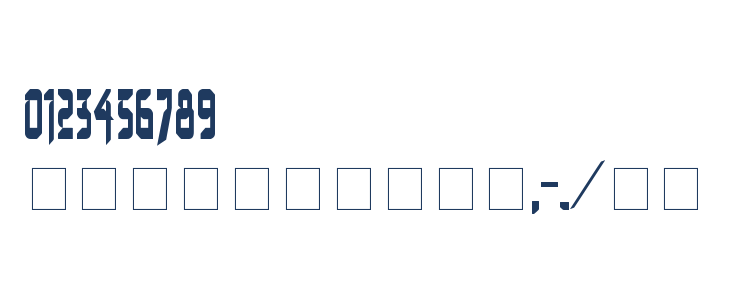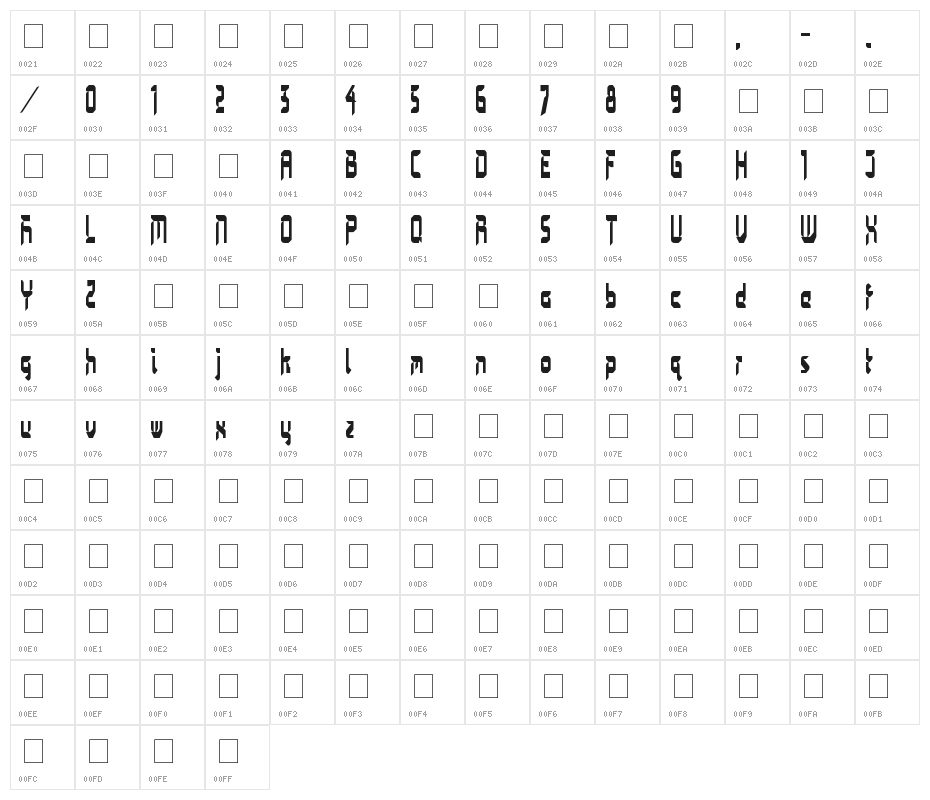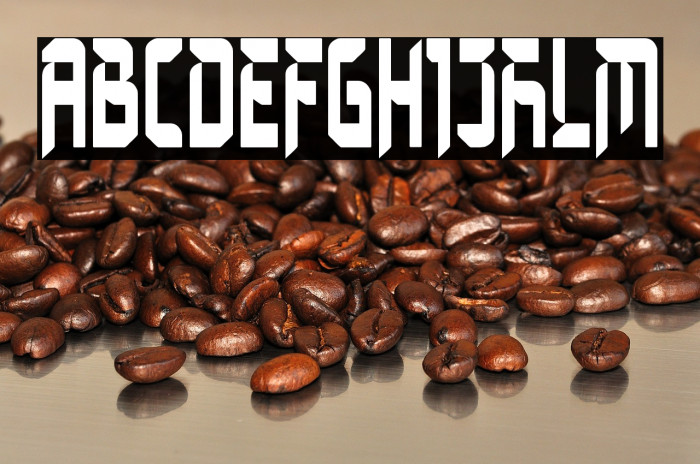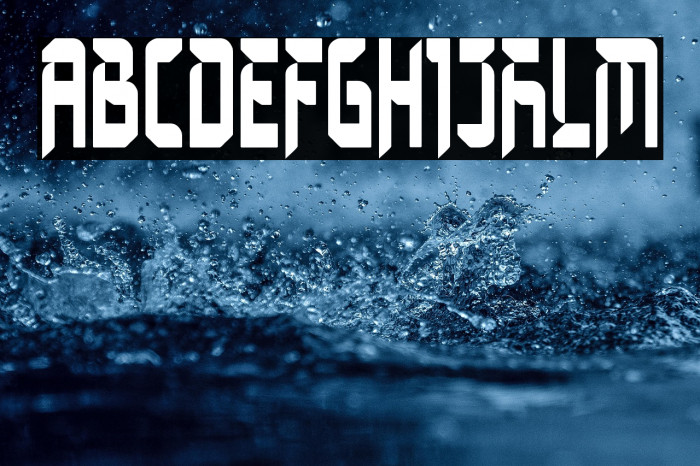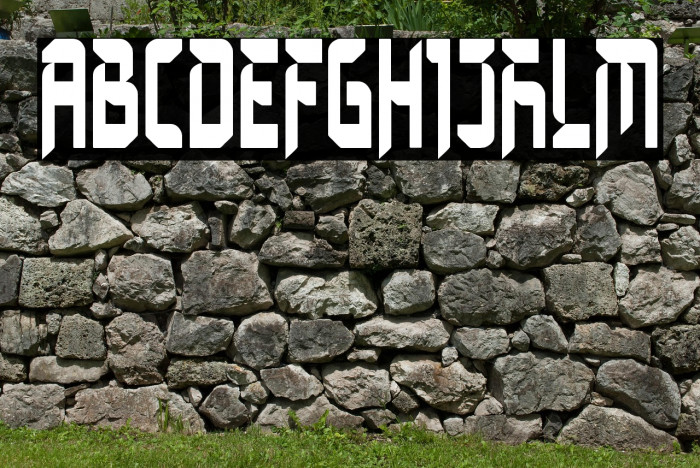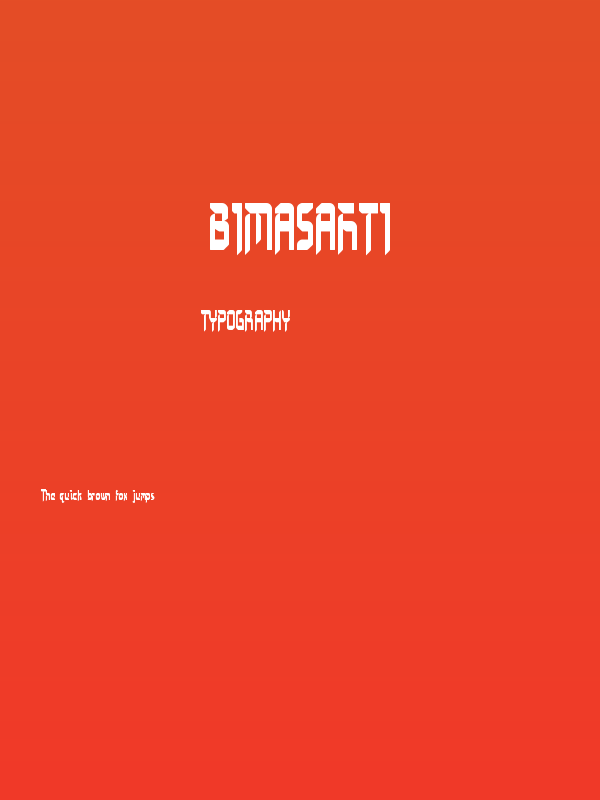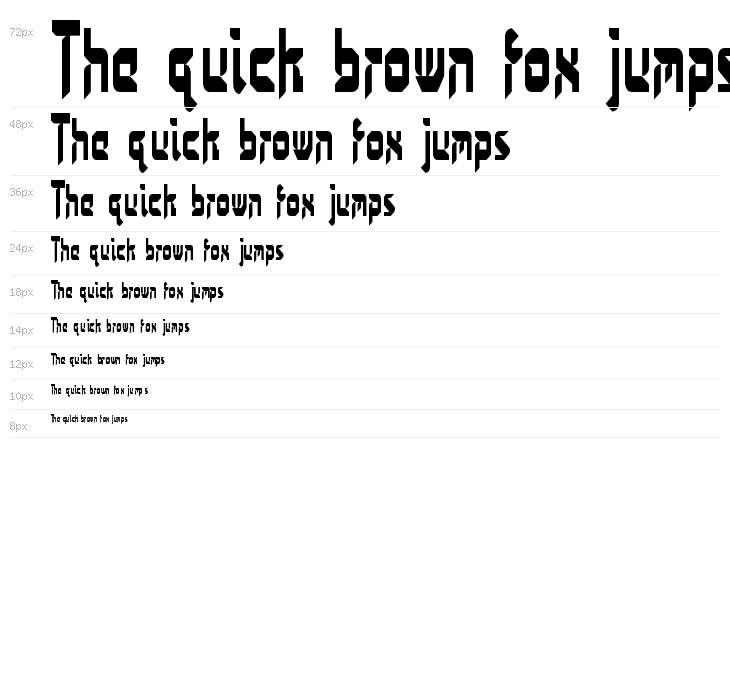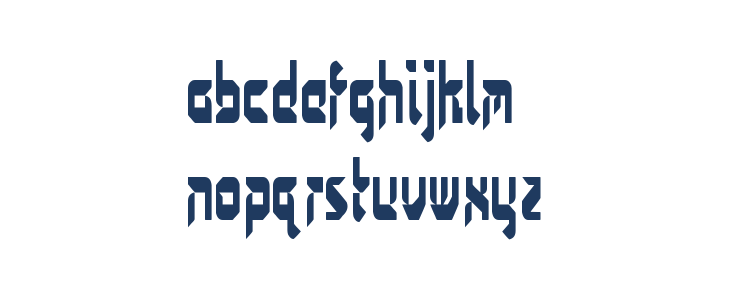
bimasakti Font
bimasakti Description
This font features a bold, geometric design with sharp angles and a futuristic aesthetic. The uppercase and lowercase letters maintain a consistent style, characterized by their blocky, angular forms. The numerals and special characters follow the same design principles, ensuring uniformity across all characters. The font's unique style makes it stand out, with each character appearing as if it were carved from a solid block, giving it a strong, impactful presence. The overall design is modern and edgy, suitable for projects that require a distinctive and bold visual statement.
| Proposed Projects | Ideal for sci-fi themed designs, video game interfaces, posters, and branding that requires a modern, edgy look. |